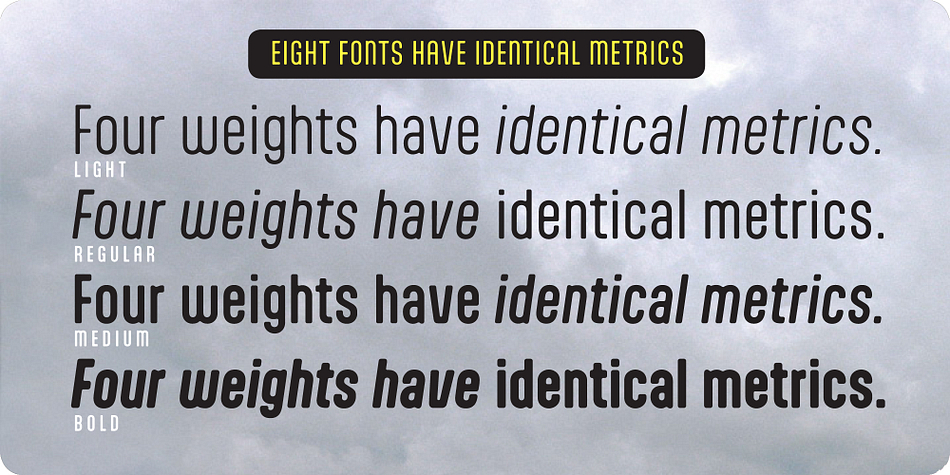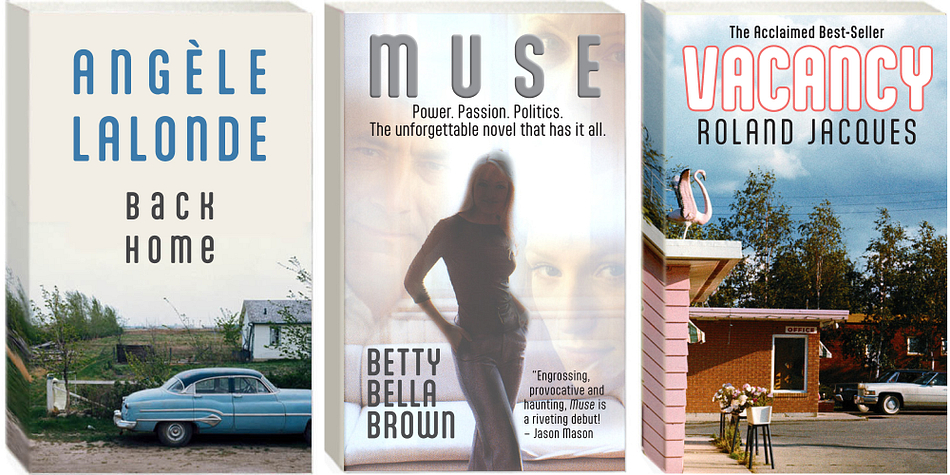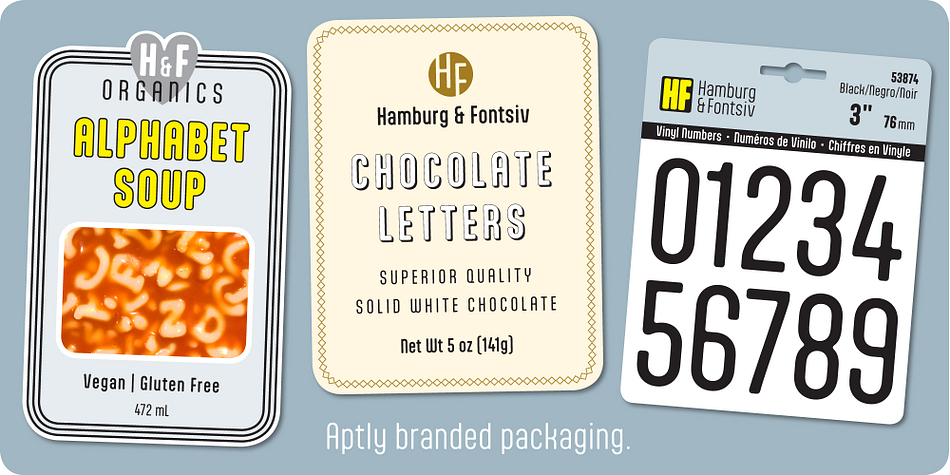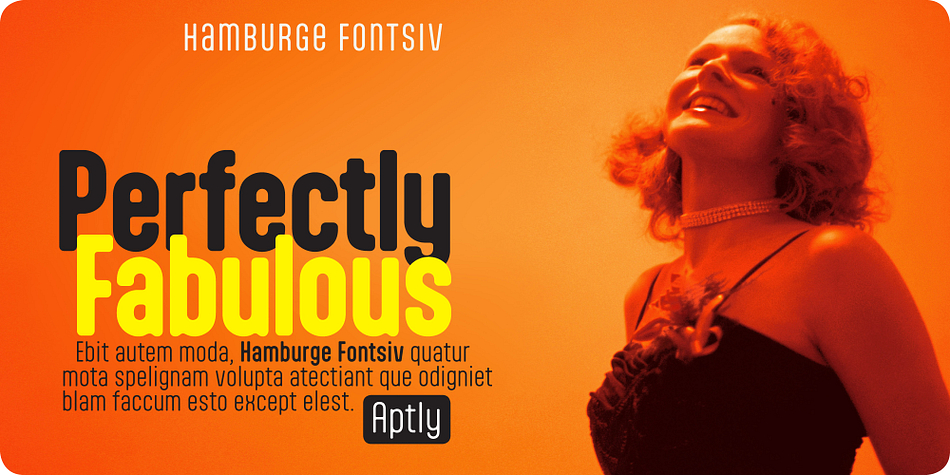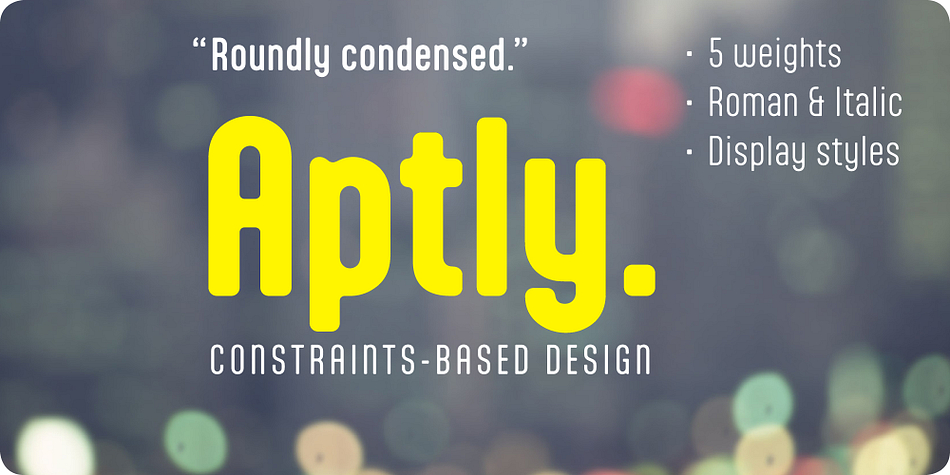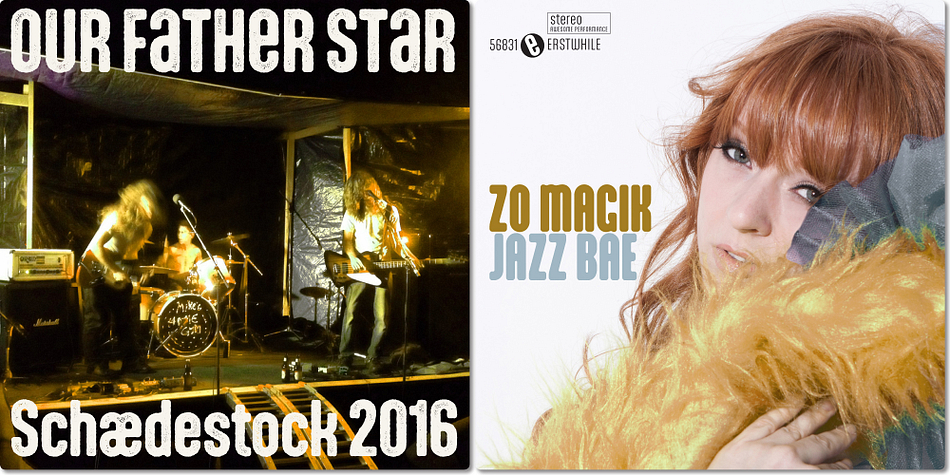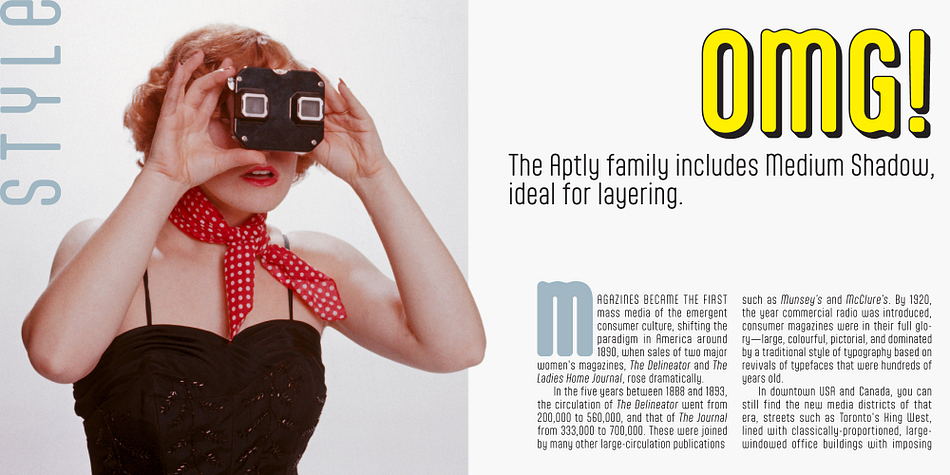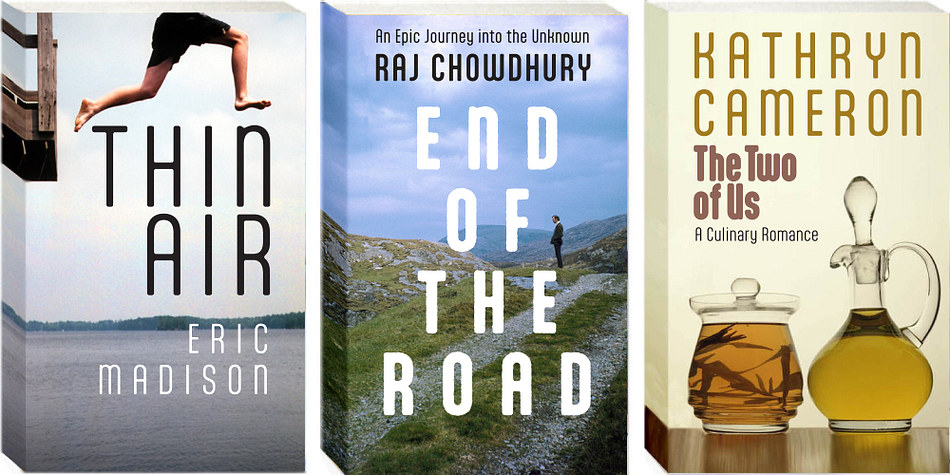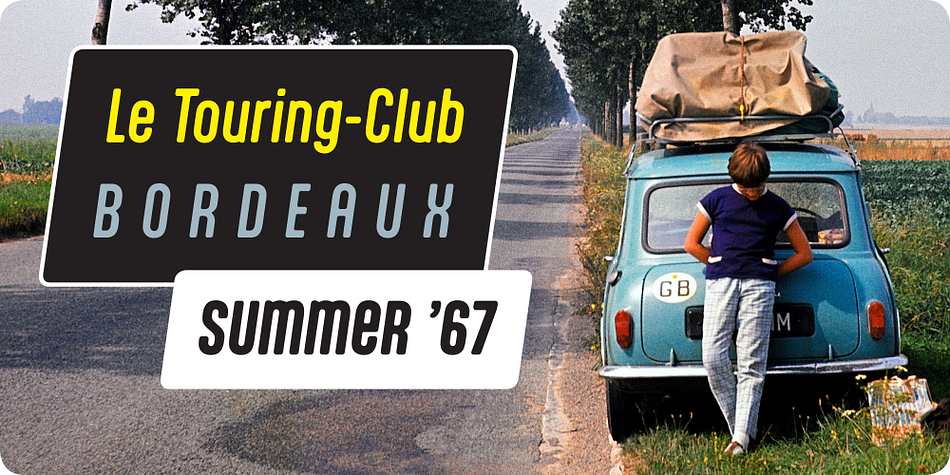
Designed by Nick Shinn, Aptly is a display sans and sans serif font family. This typeface has fourteen styles and was published by Shinntype.
The concept is “Geo-Soft”: characters are constructed from arcs of circle connected by orthogonal straight lines, with few diagonals and nary a sharp corner. The effect has an engaging tension, as soft edges are carefully balanced against rigorous structure.
All four of the main weights, including italics, have exactly the same metrics. Beyond these basic styles, suitable for both text and headline, there are additional display fonts—Extra Bold and Black for density, and College, Rust, Rough and Medium Shadow for decorative detail.
As options, minuscule-form “a” and “e” are provided at cap height for the classic unicase style, in all 13 fonts.